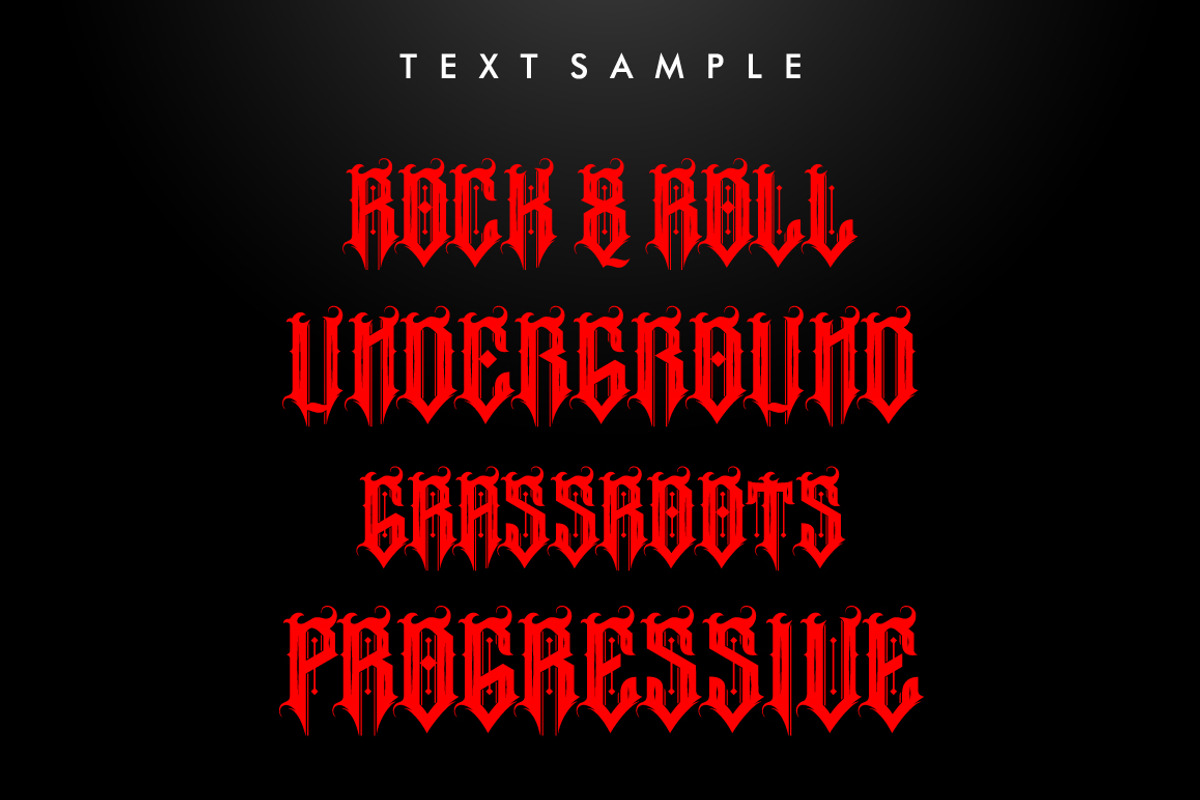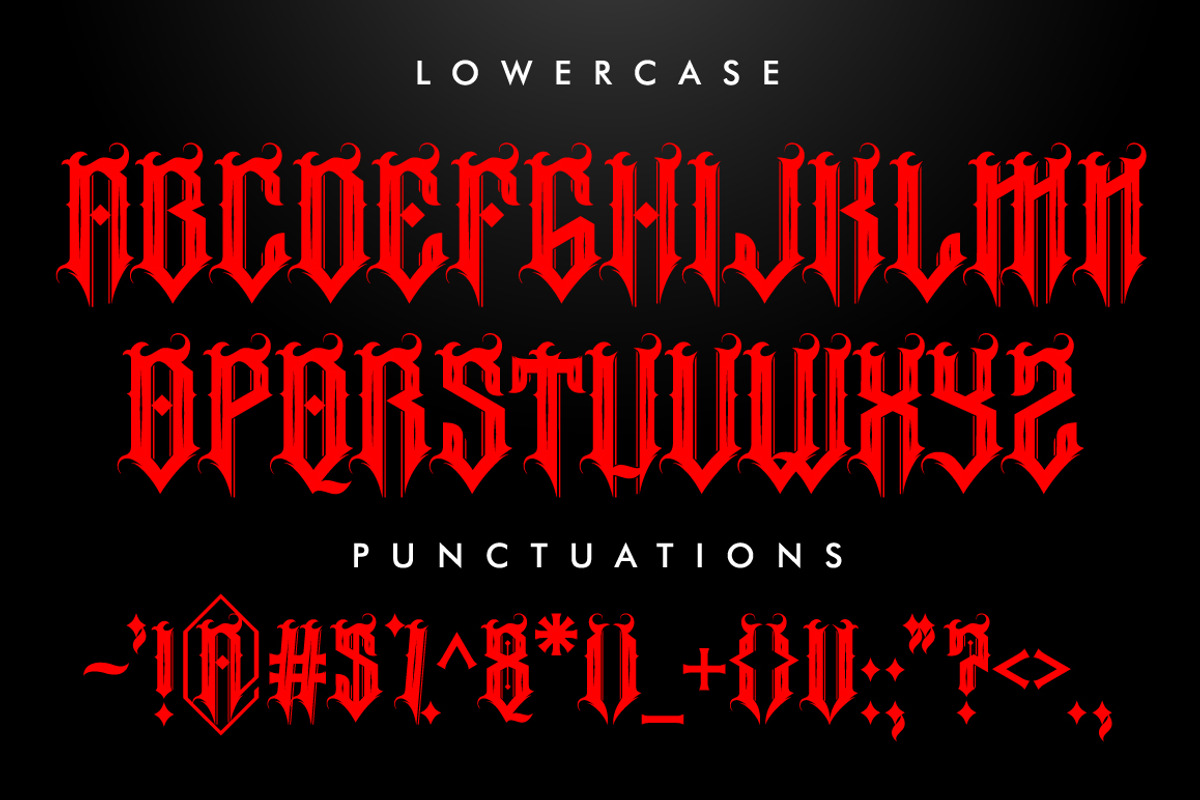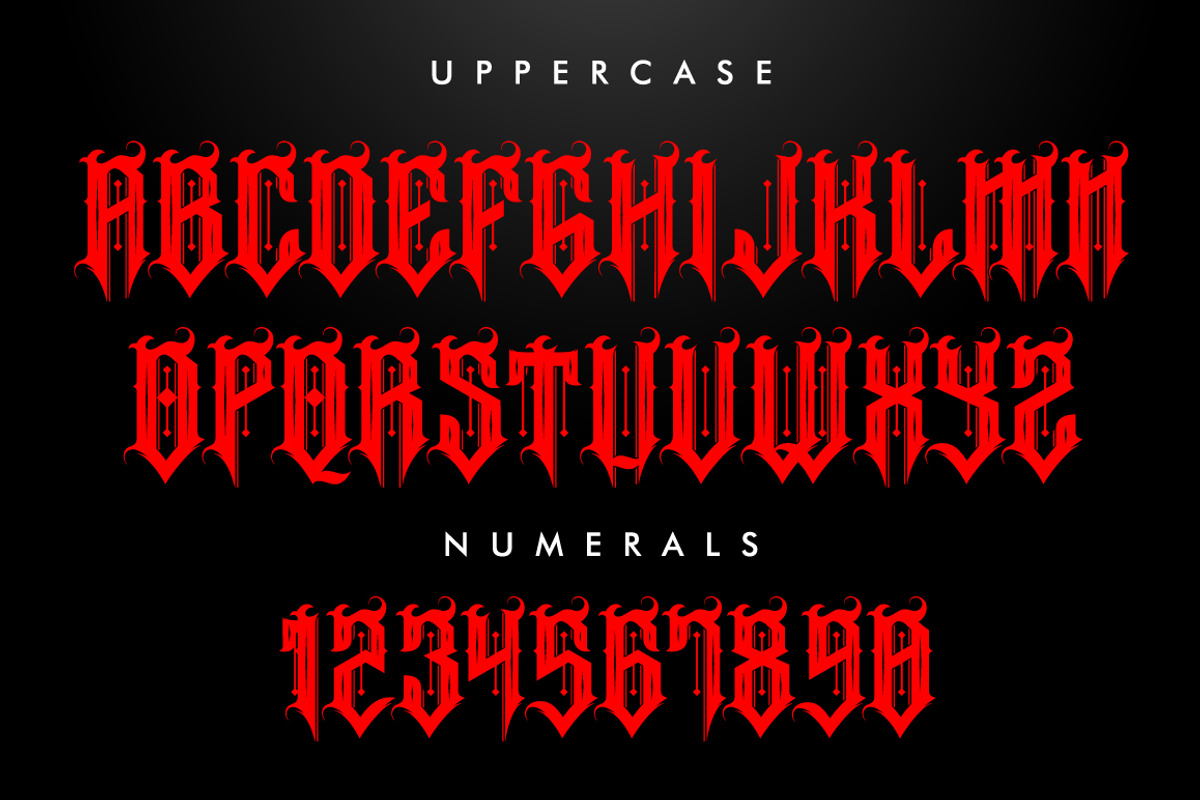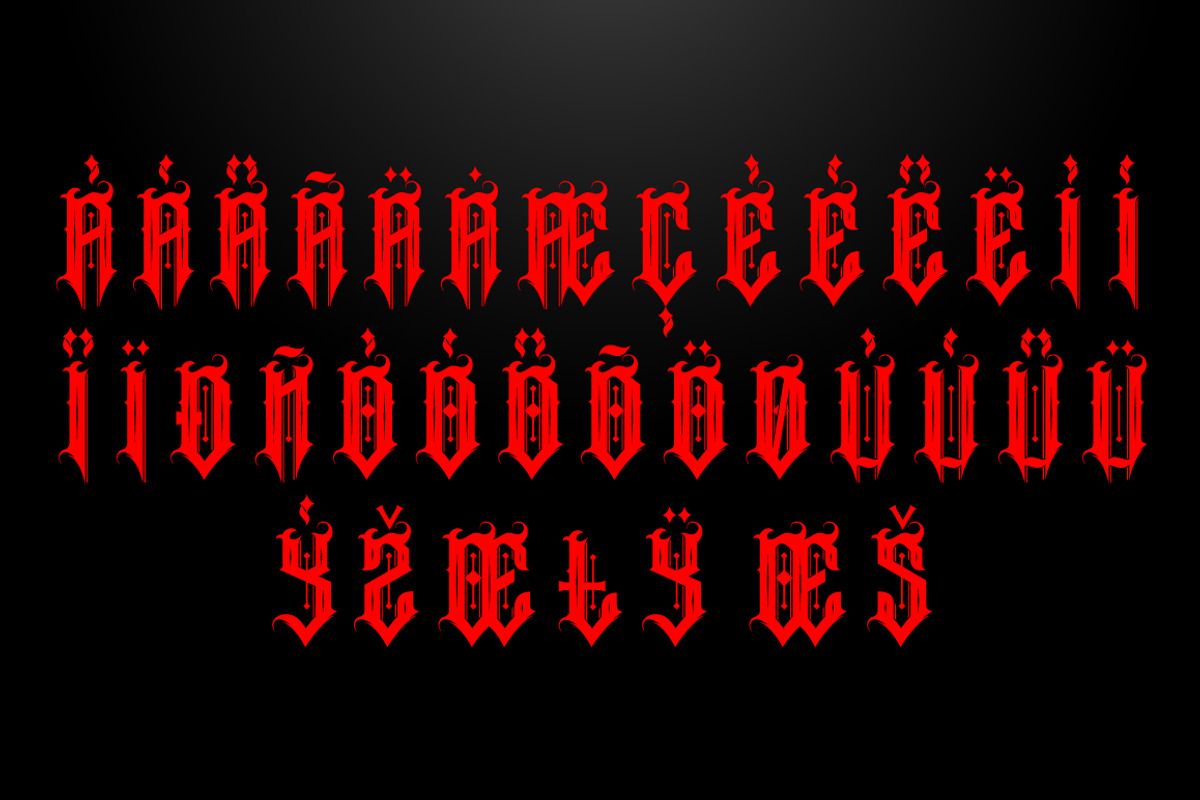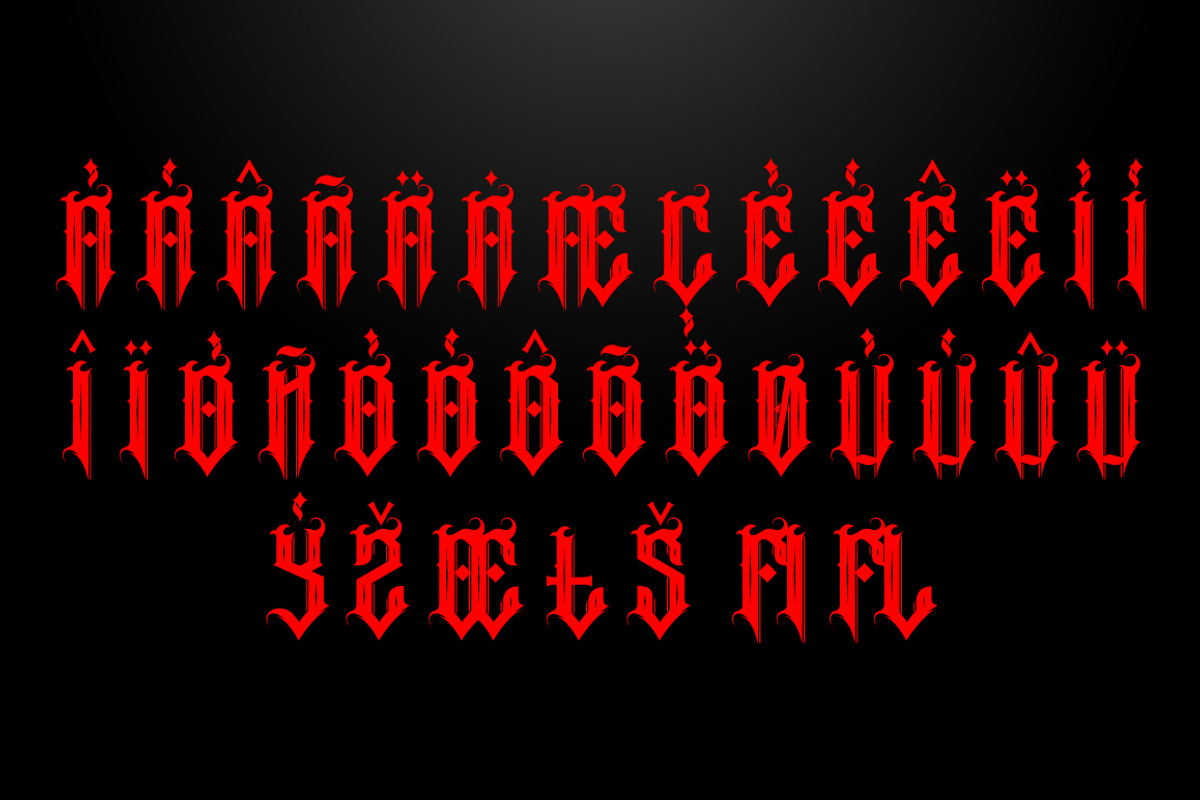
Ruthless Typeface
Ruthless Typeface by EN86-21 is a font selected for branding, posters, packaging, typography.
Why Ruthless Typeface is worth a look
Ruthless Typeface by EN86-21 fits naturally into Branding, posters, packaging, typography.